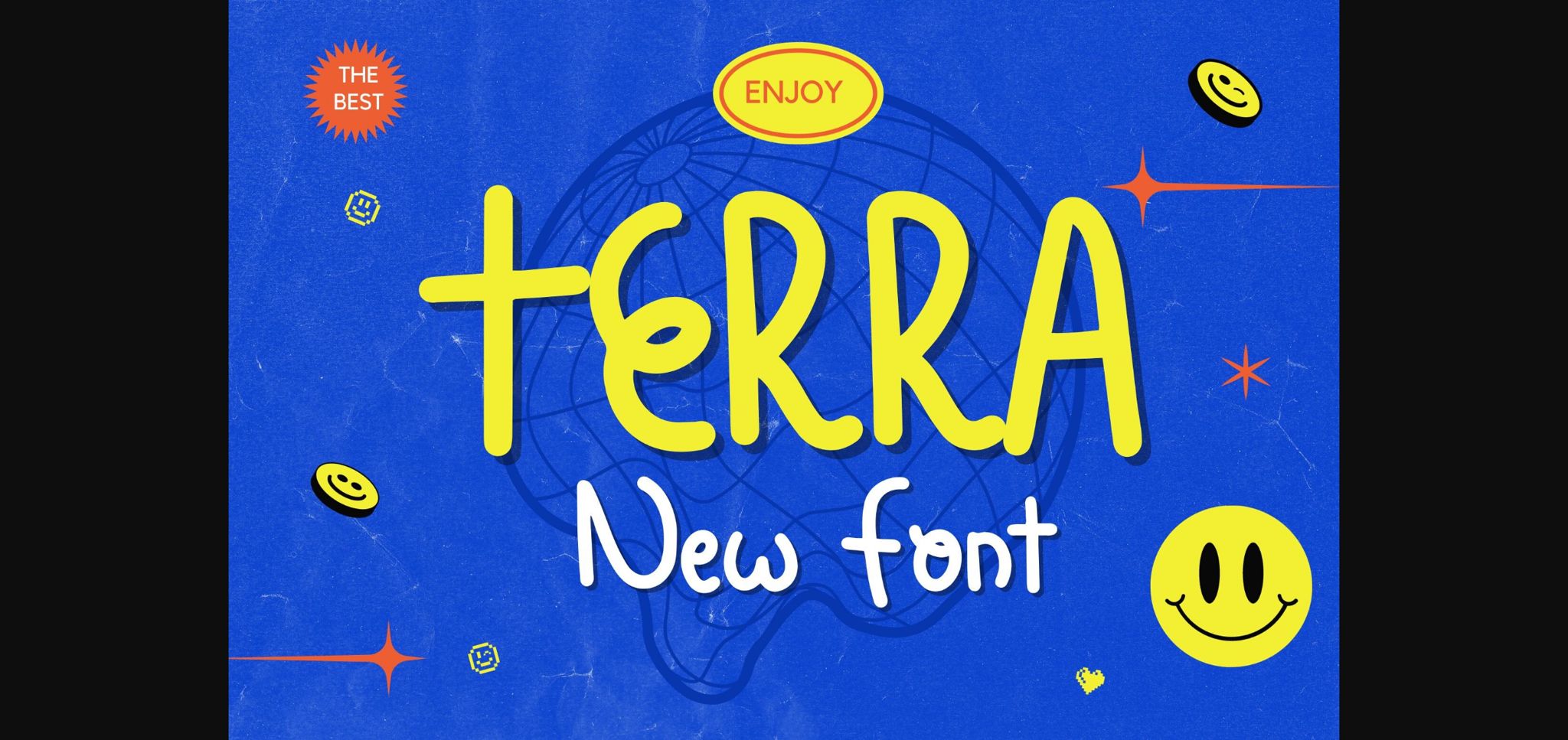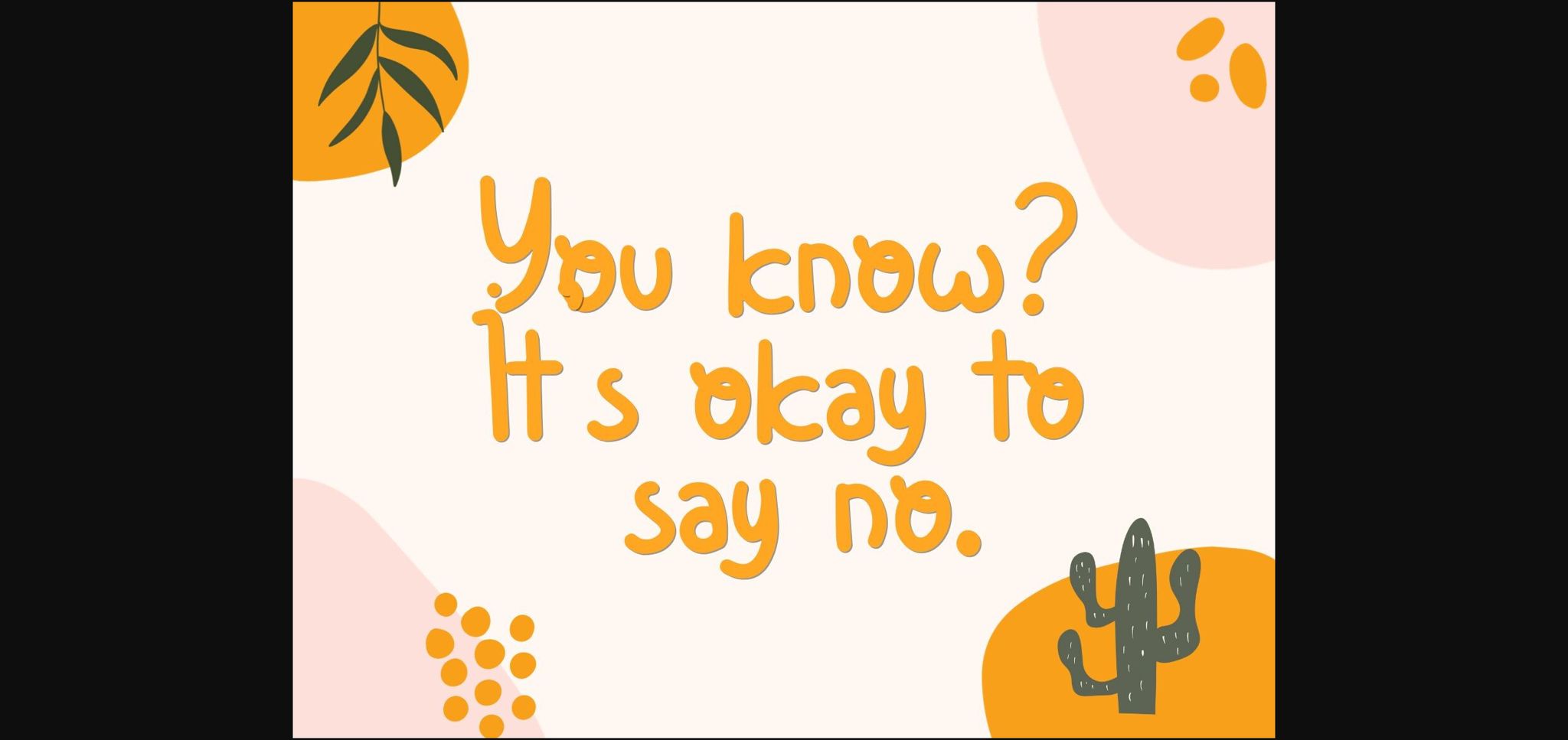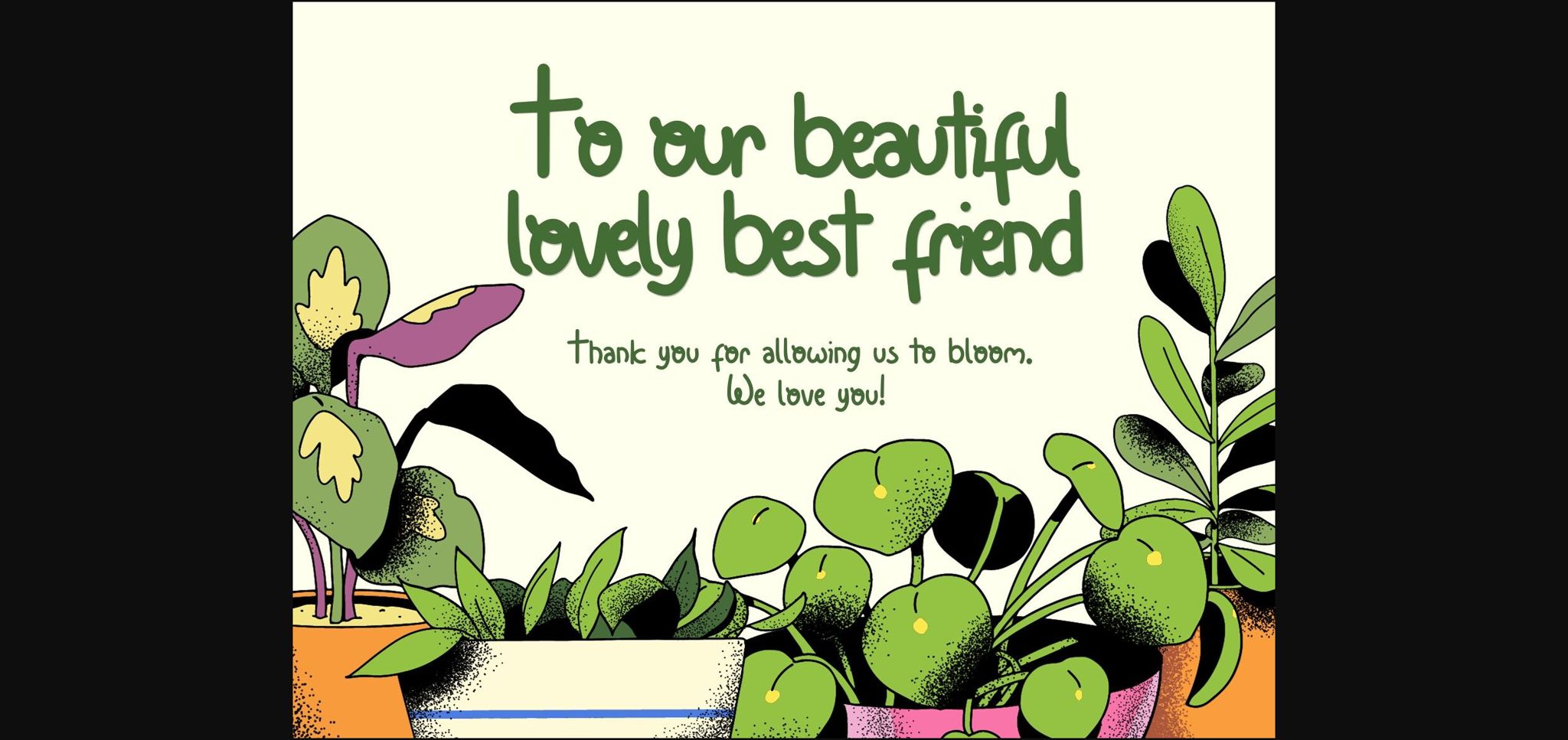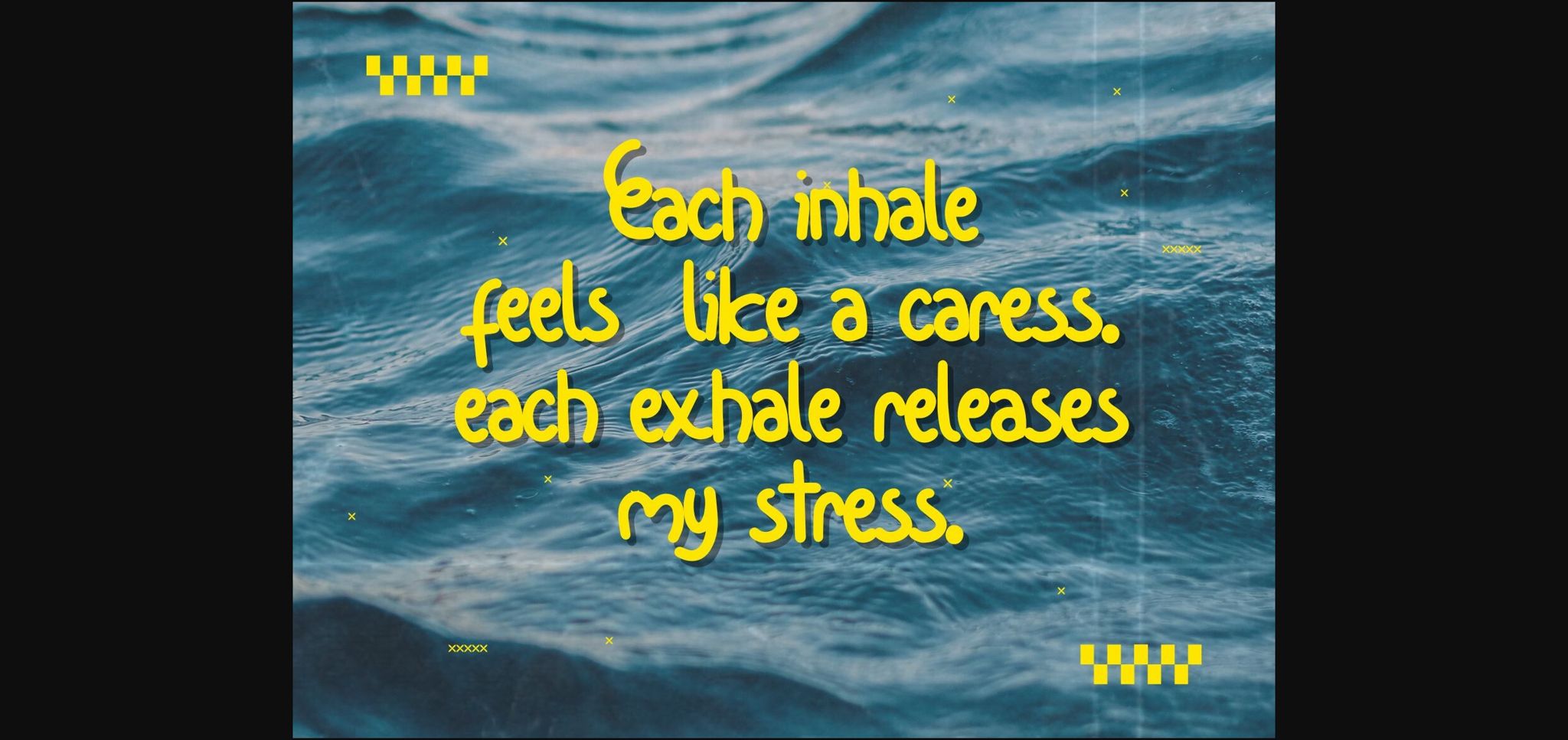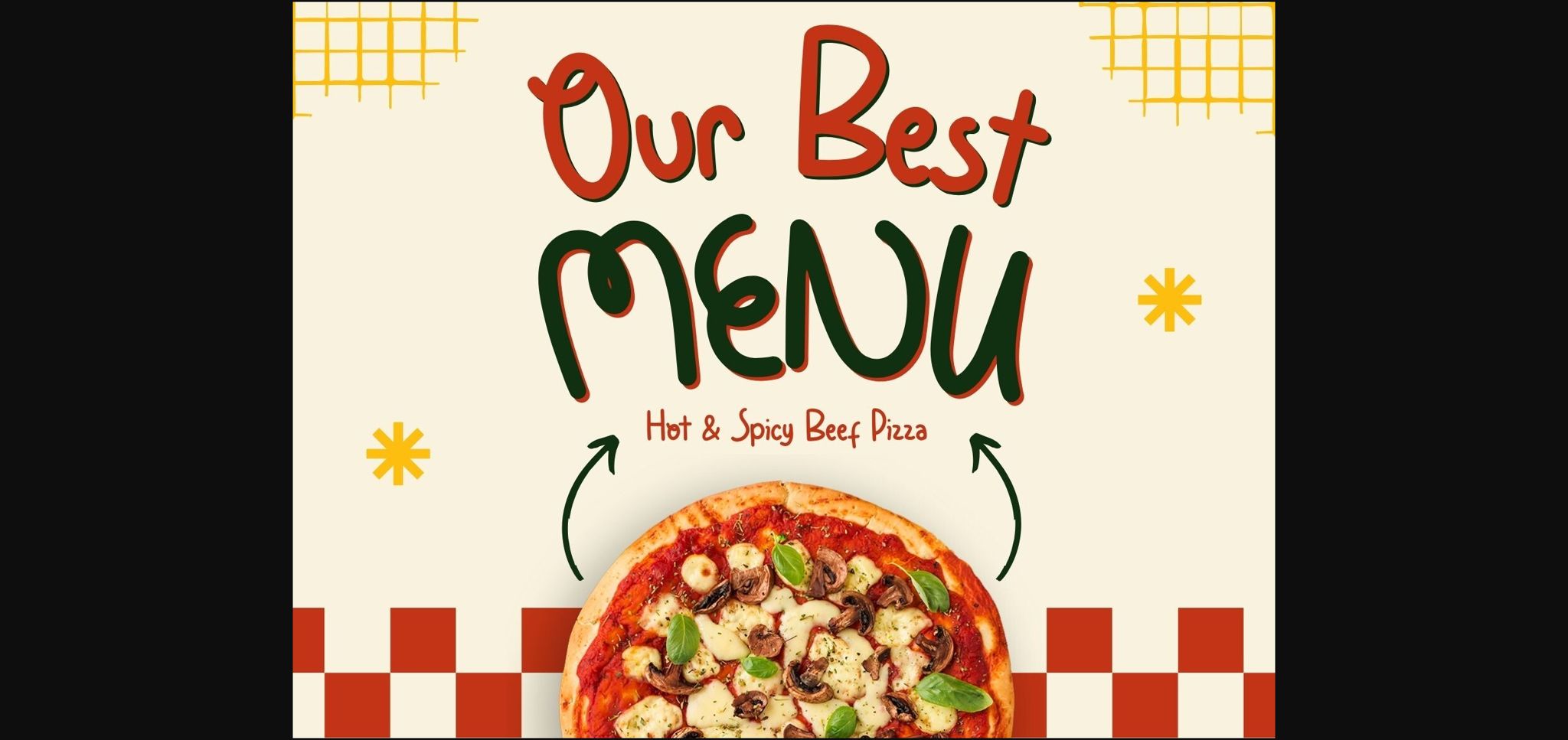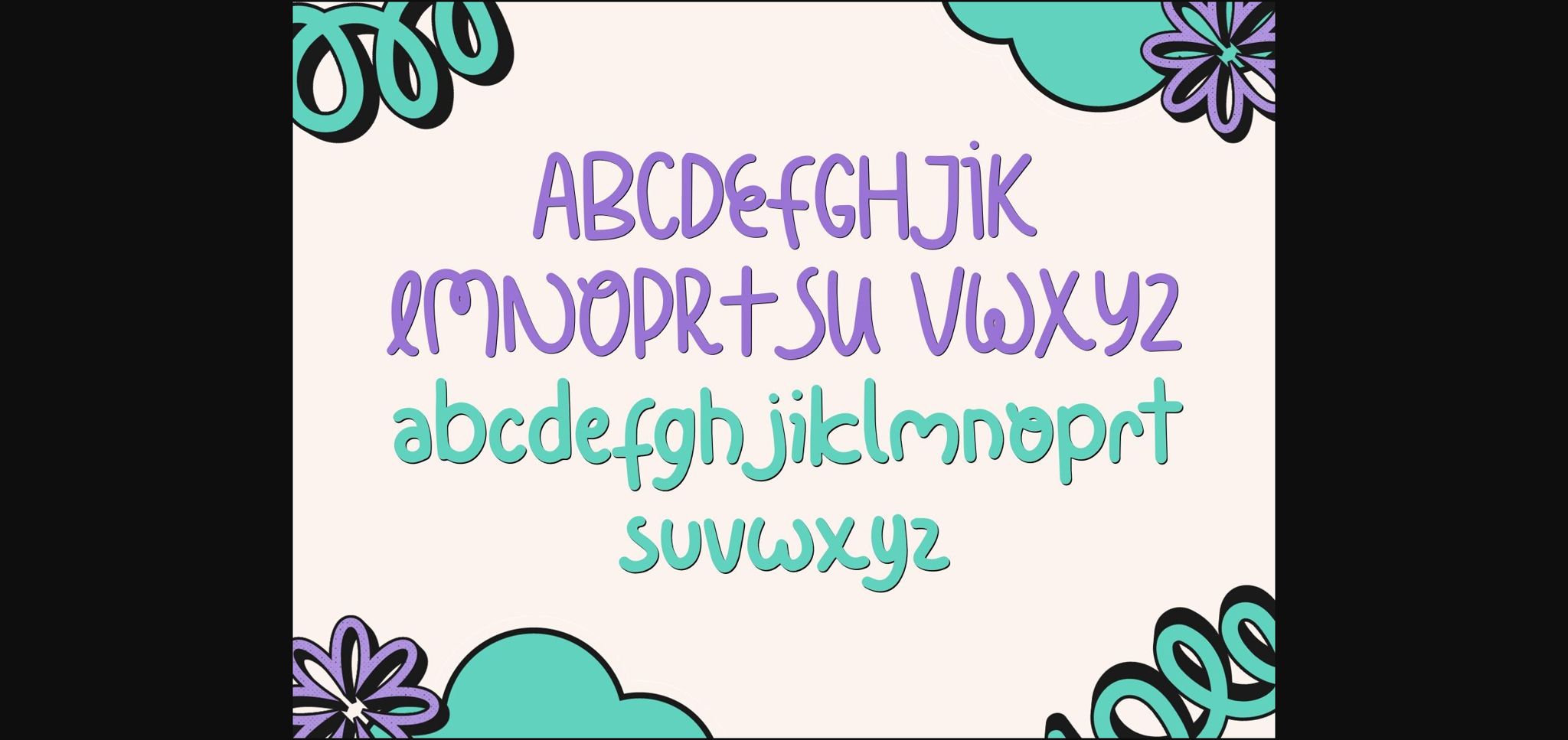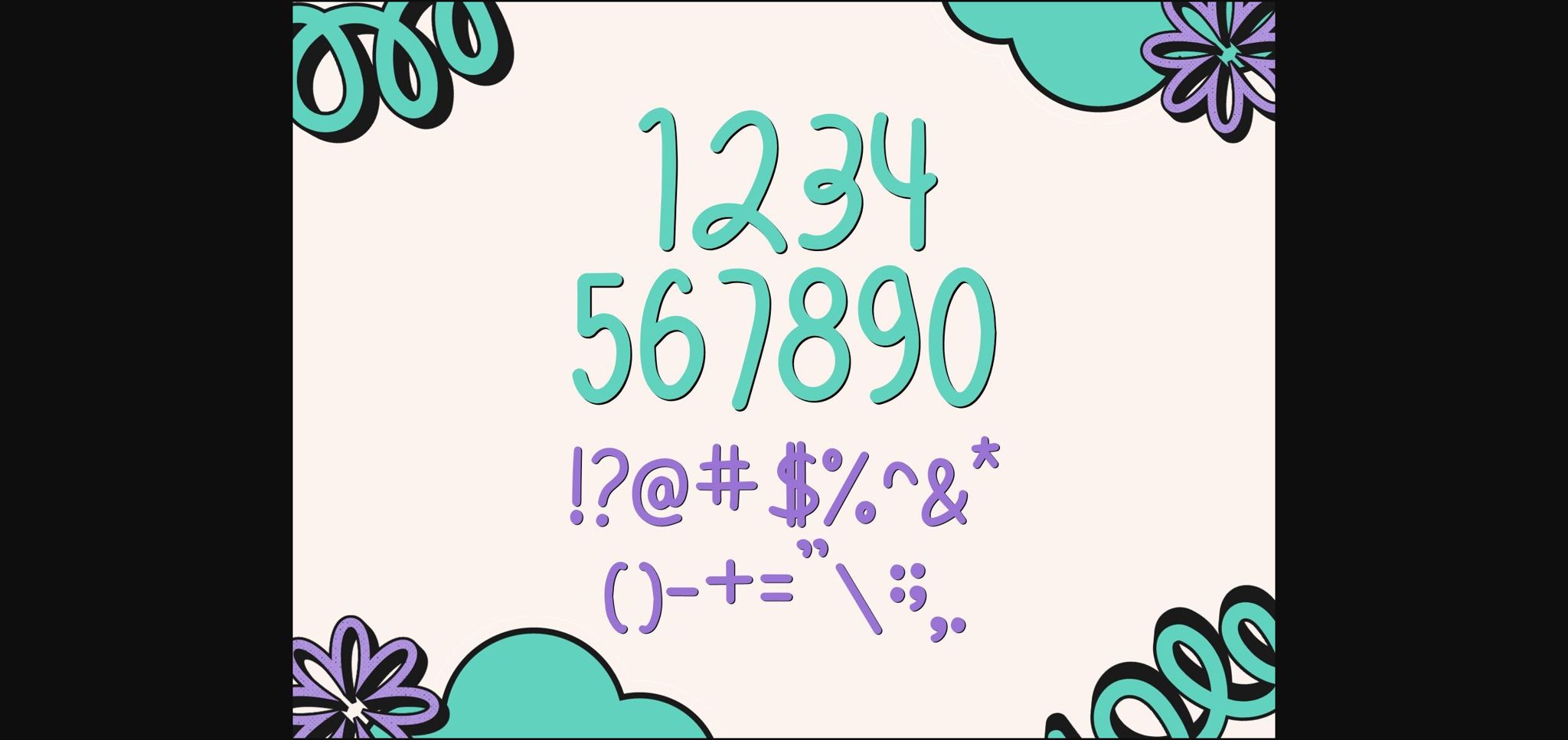
HomeSans Serif FontsTerra Font Sans Serif Fonts Terra Font FacebookXPinterestWhatsApp 1 of 9 ... Terra Font Poster 2... Terra Font Poster 3... Terra Font Poster 4... Terra Font Poster 5... Terra Font Poster 6... Terra Font Poster 7... Terra Font Poster 8... Terra Font Poster 9... About Terra Font Terra is a unique and interesting sans serif font. A little bit quirky, this font looks incredibly adept in a wide variety of contexts! DOWNLOAD NOW People also explored Melissan Spring Note Font Awesome Party Font Muathuk Font Proglime Font Superbolt Font Araina Font Unicorn Beautiful Font Spider Webs Font 306 0 TagsTerraTerra Font Previous articleZuccony FontNext articleNatural Precision Font LEAVE A REPLY Cancel reply Comment: Please enter your comment! Name:* Please enter your name here Email:* You have entered an incorrect email address! Please enter your email address here Website: Save my name, email, and website in this browser for the next time I comment. Personal Use Free Jelly Fish Personal Use Free Read more about this font Diland Personal Use Free Read more about this font Stone Cold Personal Use Free Read more about this font Ennobled Pet Personal Use Free Read more about this font BLOG Using Fonts in Digital Marketing: Tips to Strengthen Your Brand Identity In the realm of digital marketing, every visual element plays a crucial role in shaping a brand's identity, and fonts are no exception. The... Free Fonts Risk: Why Free Fonts Can Be Dangerous for Designers Free vs Paid Fonts: Why Investing in Premium Fonts Is Worth It How to Install and Use Fonts on Windows, macOS, and Web Projects